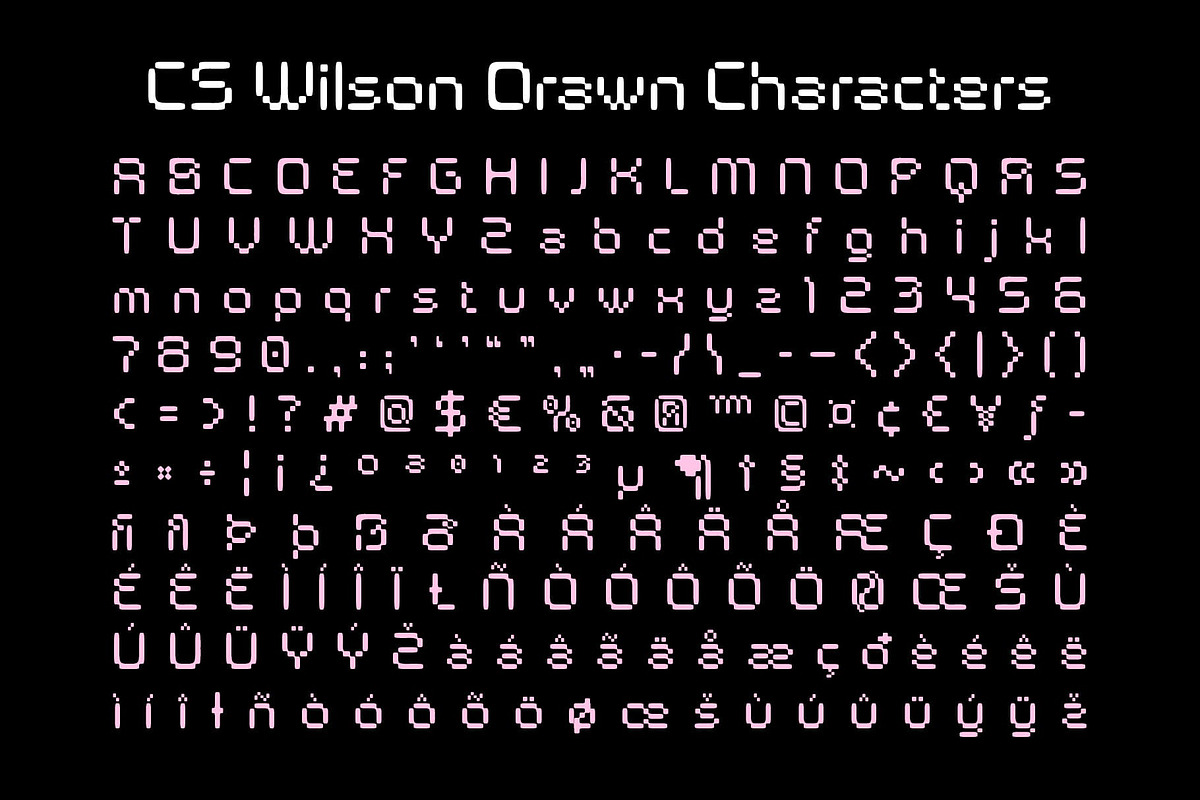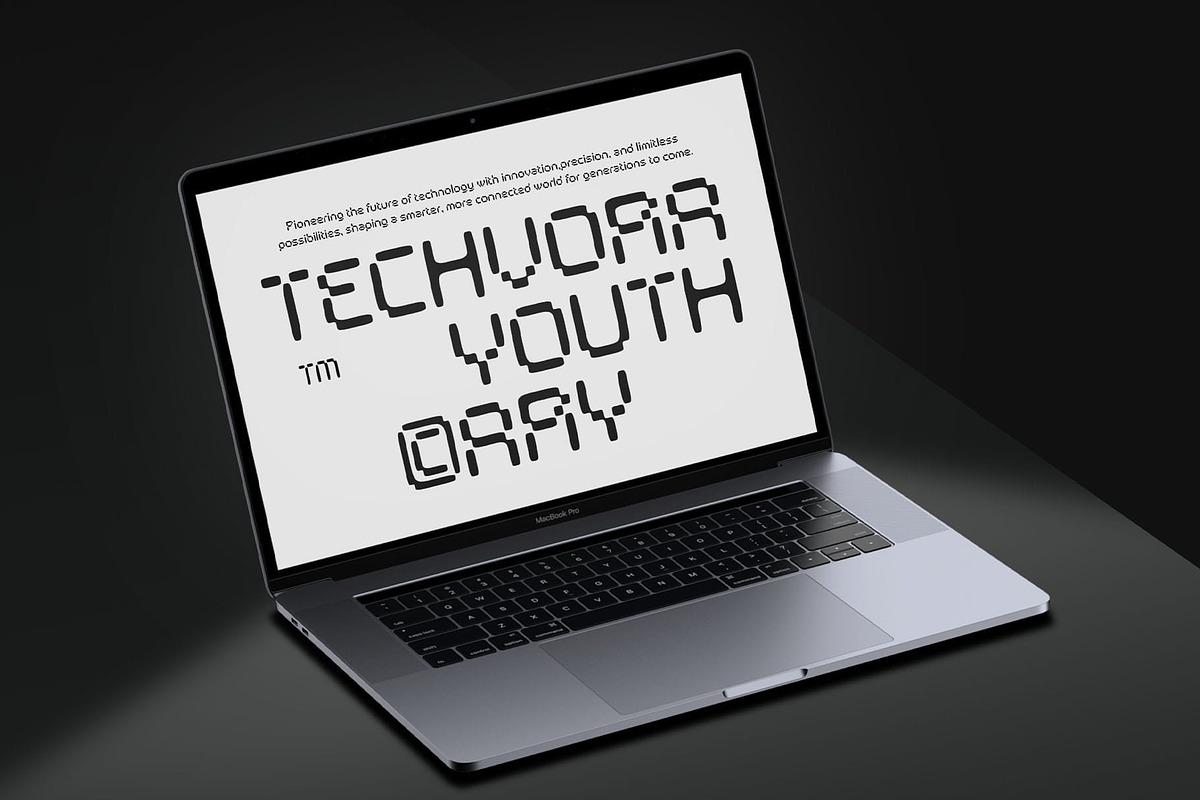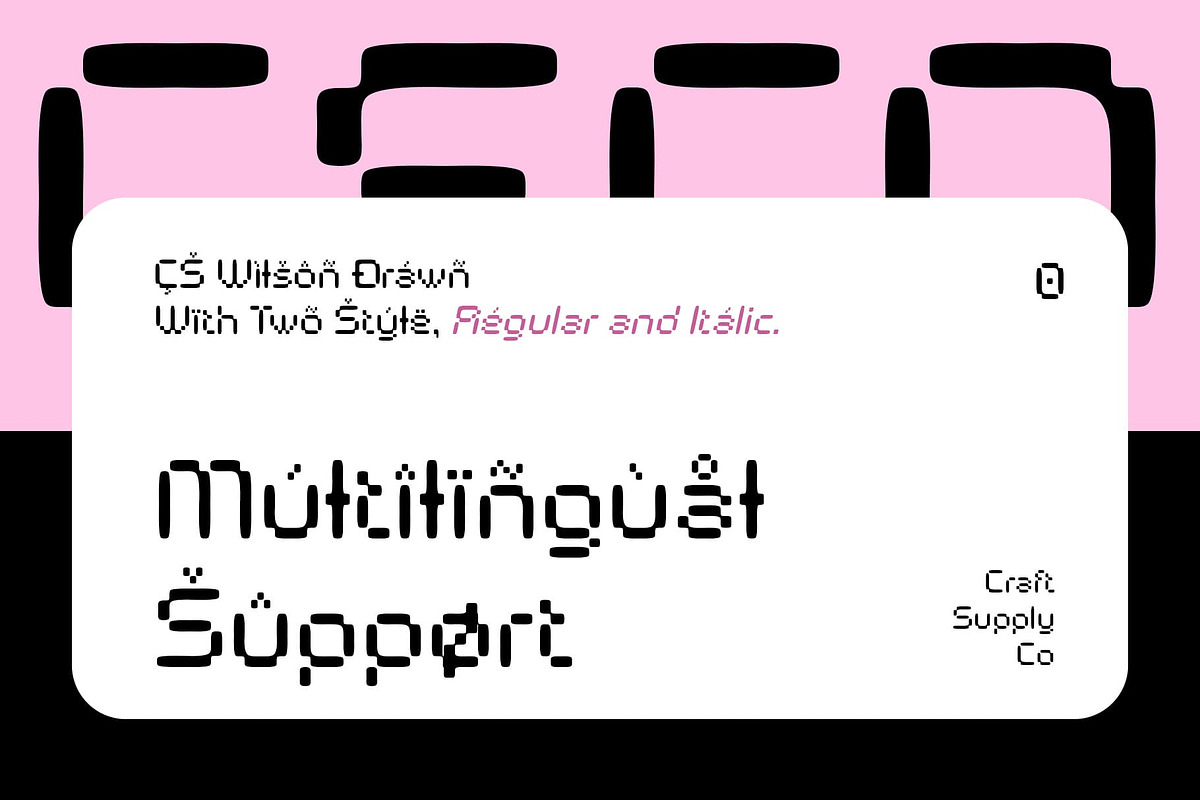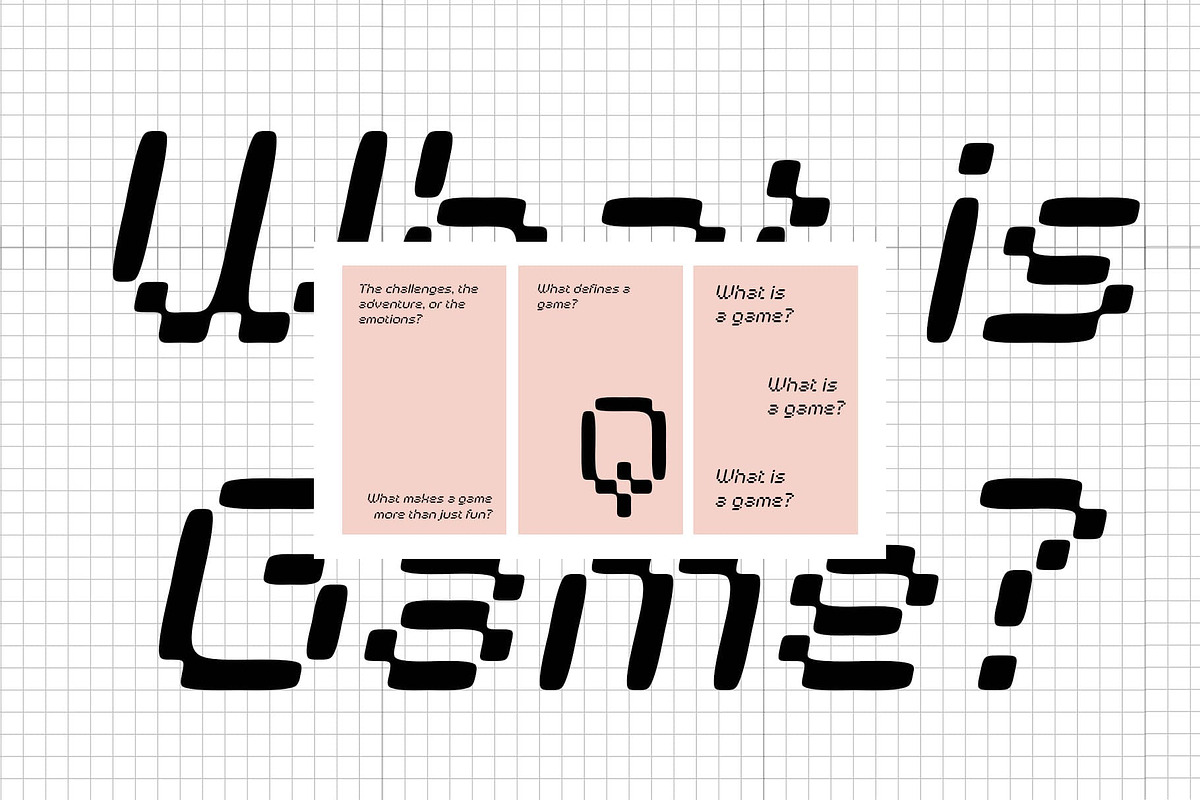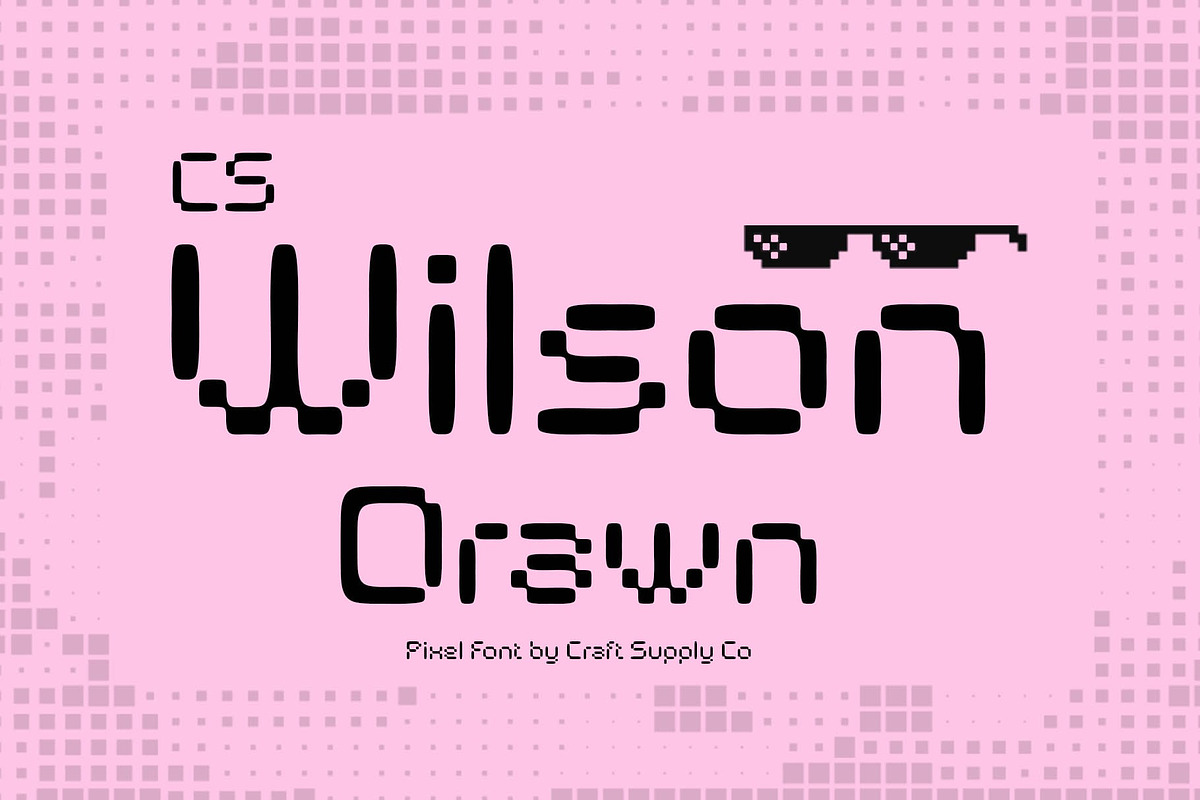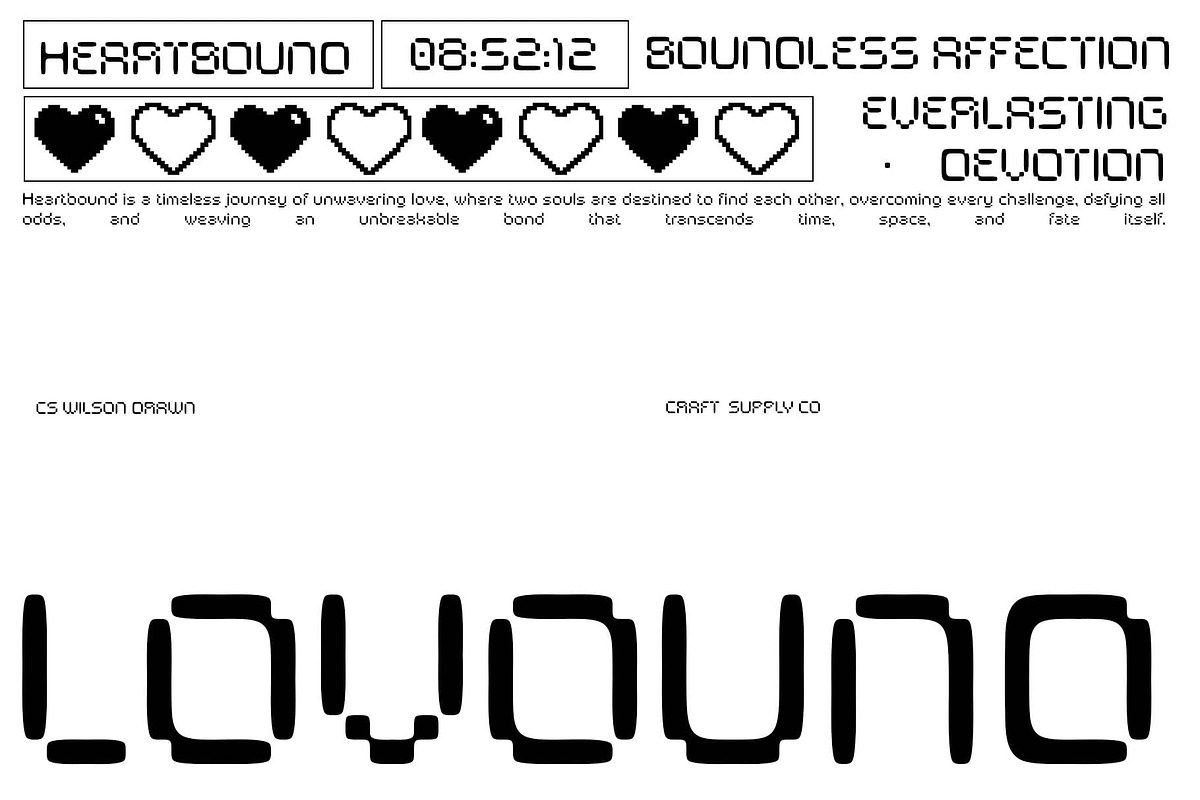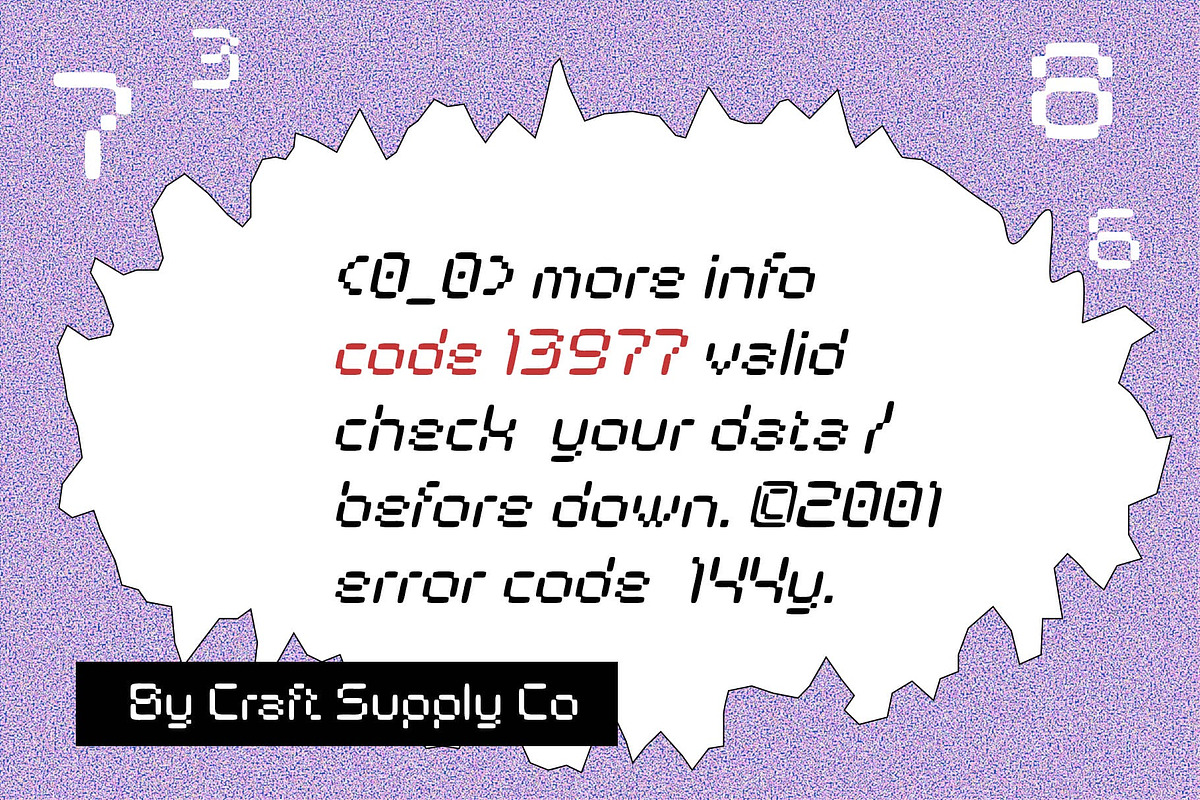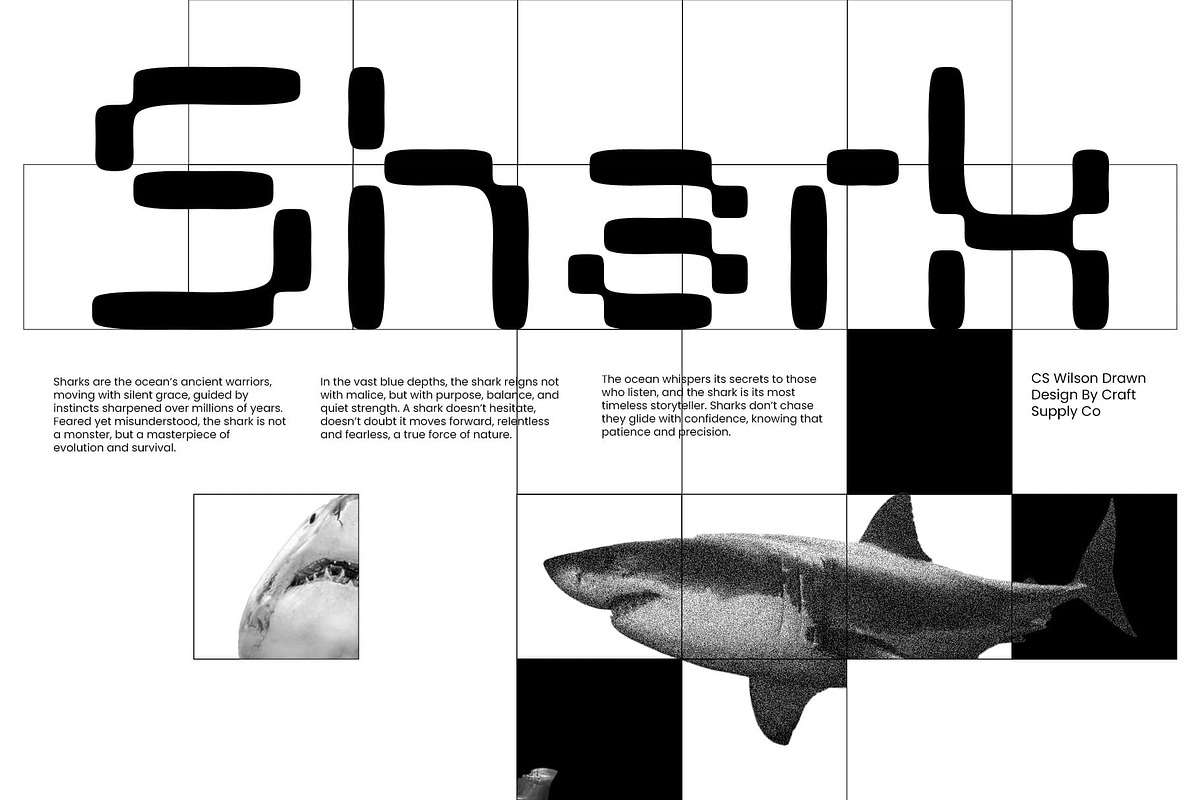
CS Wilson Drawn
CS Wilson Drawn Font: A Pixel-Perfect Fusion of Retro and Hand-Drawn Aesthetic
Pixel Display Font with a Rasterized Appearance CS Wilson Drawn is a unique pixel display font that captures the essence of retro digital design with a distinctive hand-rendered touch. Built on a grid-based structure, each character is meticulously crafted with blocky squares, evoking the nostalgic feel of early digital screens, 8-bit and 16-bit video games, and vintage tech interfaces.
Inspired by the 90s Digital and Gaming Era This font embodies the pixelated charm of the 90s, bringing back the aesthetics of arcade games, computer terminals, and classic digital art. The structured yet expressive letterforms make it a standout choice for designs that celebrate the golden age of technology and gaming.
Hand-Drawn Effect for an Artistic Edge Unlike standard pixel fonts, this display font adds a unique, slightly hand-rendered effect, giving it an organic and expressive quality. This subtle imperfection enhances its character, making it ideal for glitch art, cyberpunk themes, and creative projects that blend digital nostalgia with a modern artistic twist.
Perfect for Digital Nostalgia and Cyber-Inspired Designs With its fusion of pixel precision and artistic distortion, this drawn font is an excellent choice for gaming logos, retro-futuristic branding, digital posters, and experimental typography. Whether you’re designing for old-school gaming fans, tech-inspired visuals, or cyberpunk aesthetics, this font delivers a bold and unforgettable impact.